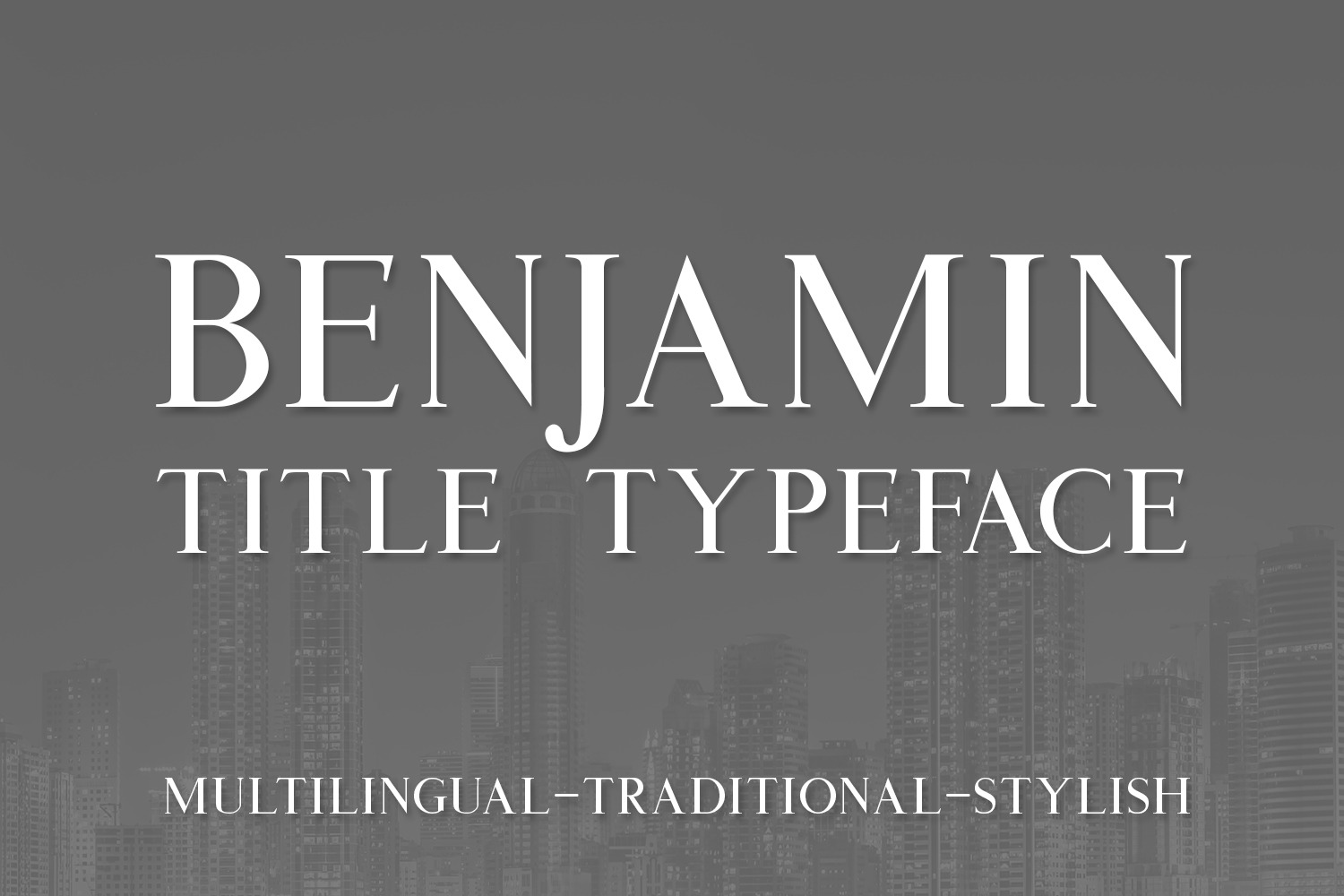
Benjamin Title Typeface
UPDATED: Now includes multilingual characters!
Benjamin Title Typeface is a high contrasting serif font in all-caps.
Designed to provide a traditional looking font, with a modern and professional feel.
Benjamin Title has a masculine appearance, with strong, bold lines, yet has a delicate balance with the contrasting thinner strokes.
These features make Benjamin Title portray confidence, authority, and class!
- Includes extra mathematical characters such as fractions and more
- Currency glyphs include dollar, yen, euro and the pound sterling
- Extra symbols in the private use area which is accessible in programs like Adobe Illustrator
- See character set image for more details on extra glyphs provided